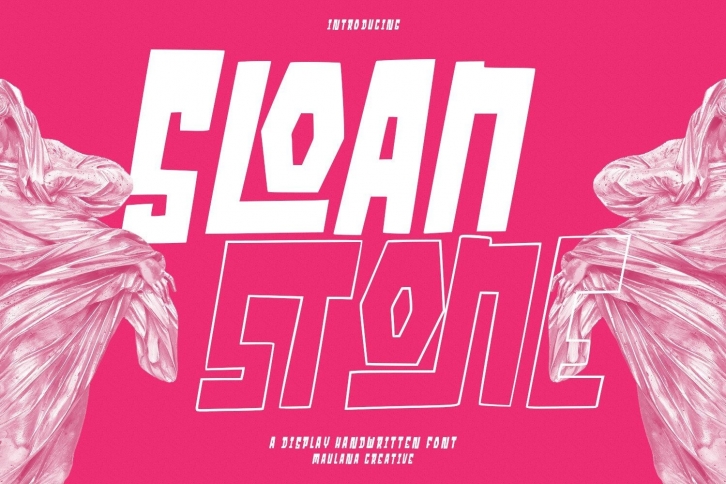
Sloanstone is a very modern and trendy display font. With its distinct contemporary character, this font can be easily added to your favorite designs such as book covers, magazines, social media posts, invitations, and so much more!